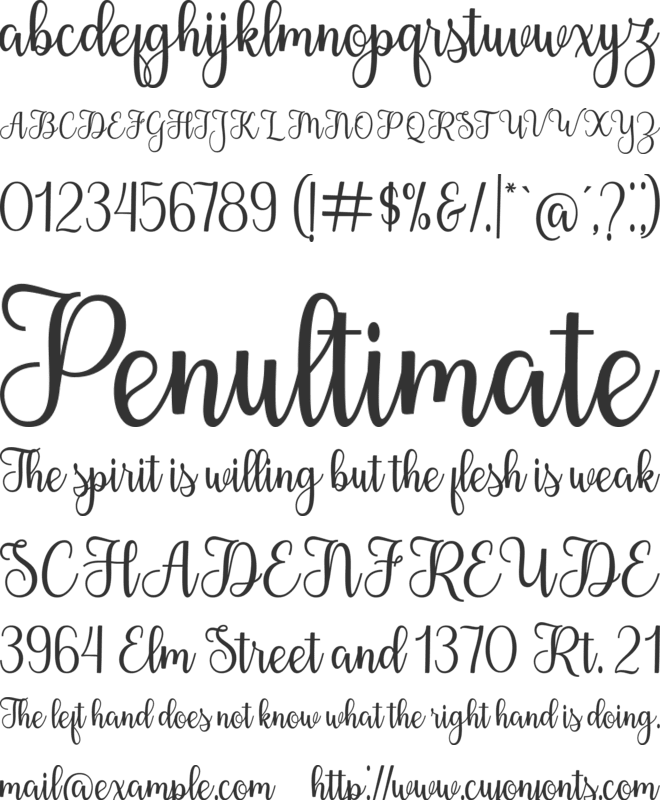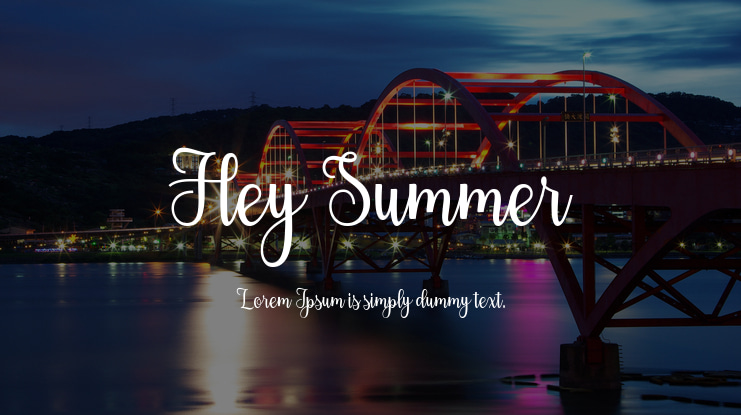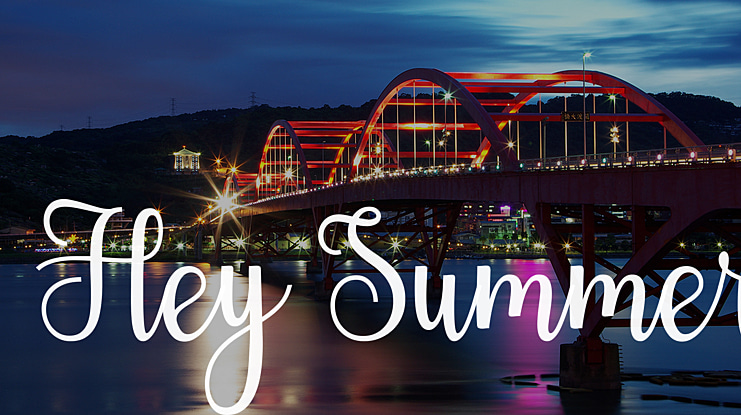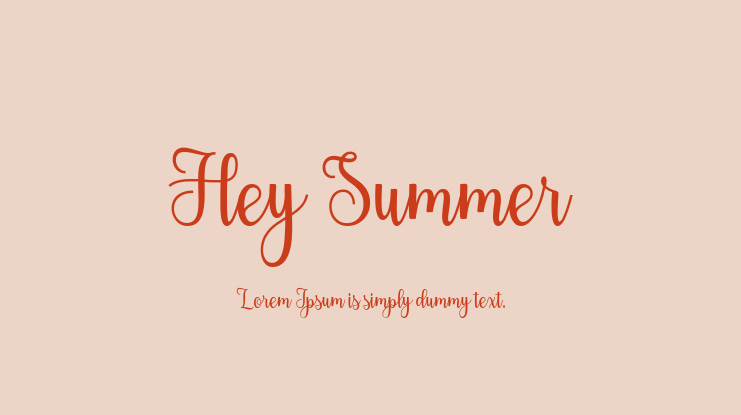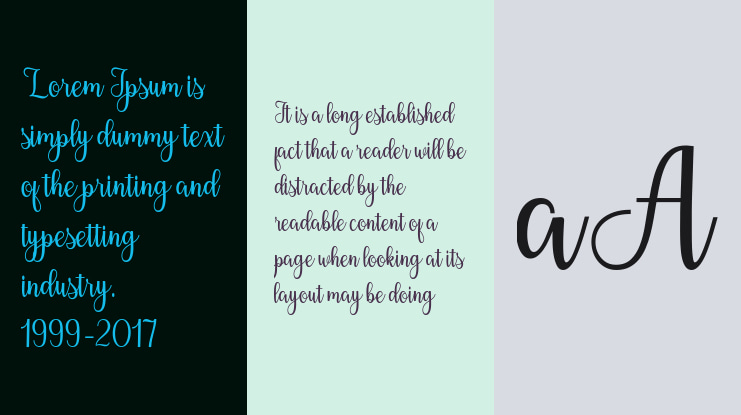
Hey Summer Font
Introducing
Hey Summer in a beautiful handwritten style. Equipped with 400 glyphs. Hey Summer is perfect for branding projects, home appliance design, product packaging, use in business cards, invitation cards, etc. Simply as a stylish text overlay onto a background image or anything that requires a touch of elegance.
Hey Summer font preview